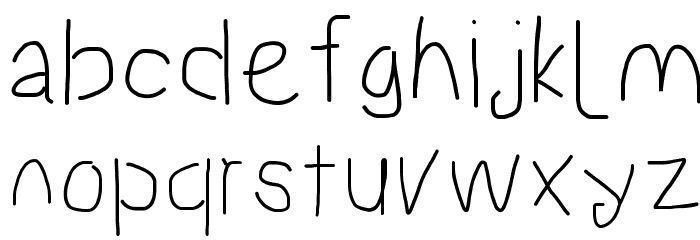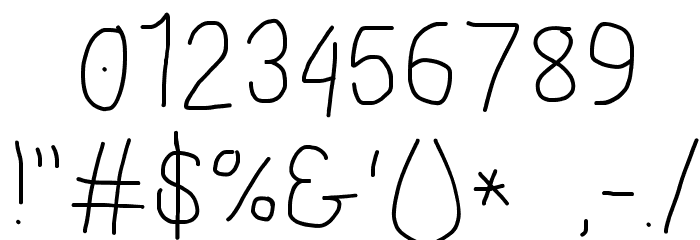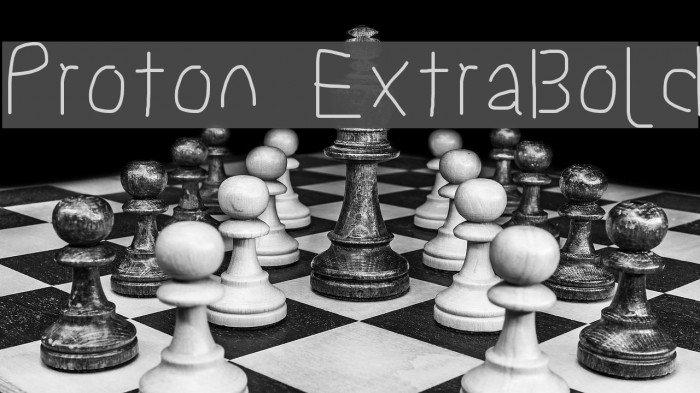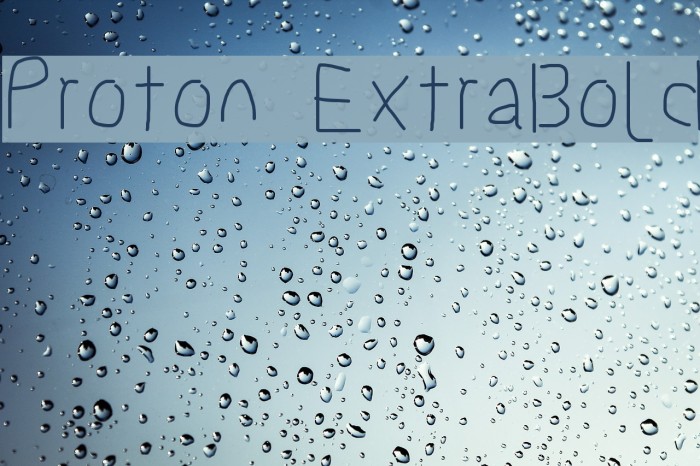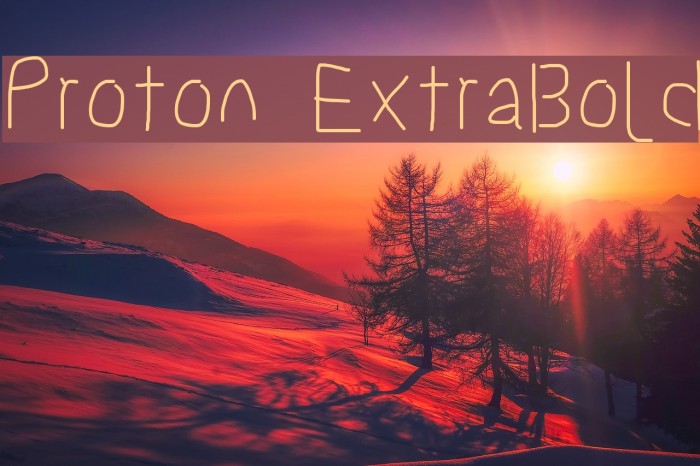
Proton ExtraBold Font
This font features a playful and informal handwritten style, characterized by its irregular strokes and casual appearance. The letters are slightly tilted, giving them a dynamic and lively feel. The uppercase and lowercase letters maintain a consistent flow, while the numbers and special characters complement the overall aesthetic. The font's design is reminiscent of a personal note or a casual message, making it approachable and friendly. Its simplicity and charm make it suitable for projects that require a touch of personality and warmth.
A playful, handwritten font with a casual and dynamic style.
- Proposed Projects: Ideal for greeting cards, personal blogs, children's books, and informal branding.
- Category: Handwritten
- Overall Style: Casual
- Use Case: Headlines, Informal text, Personal notes